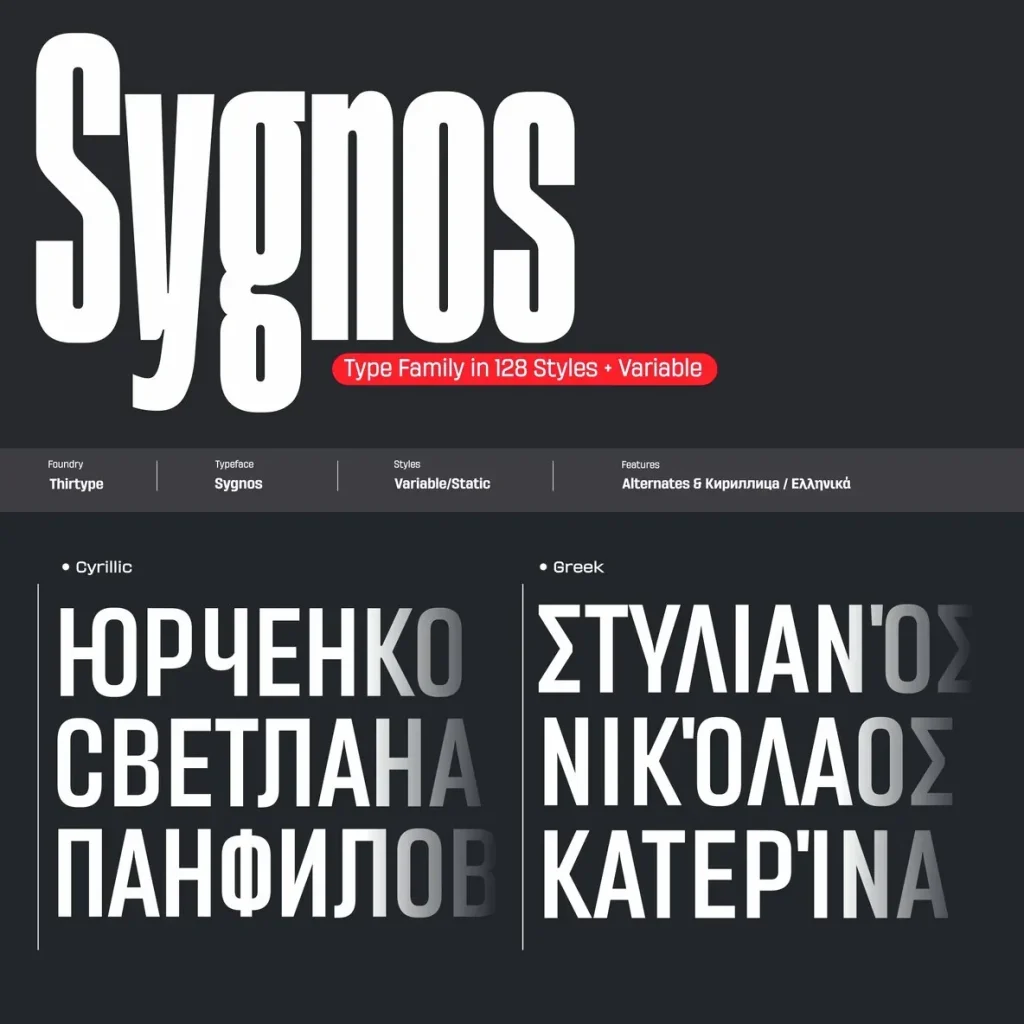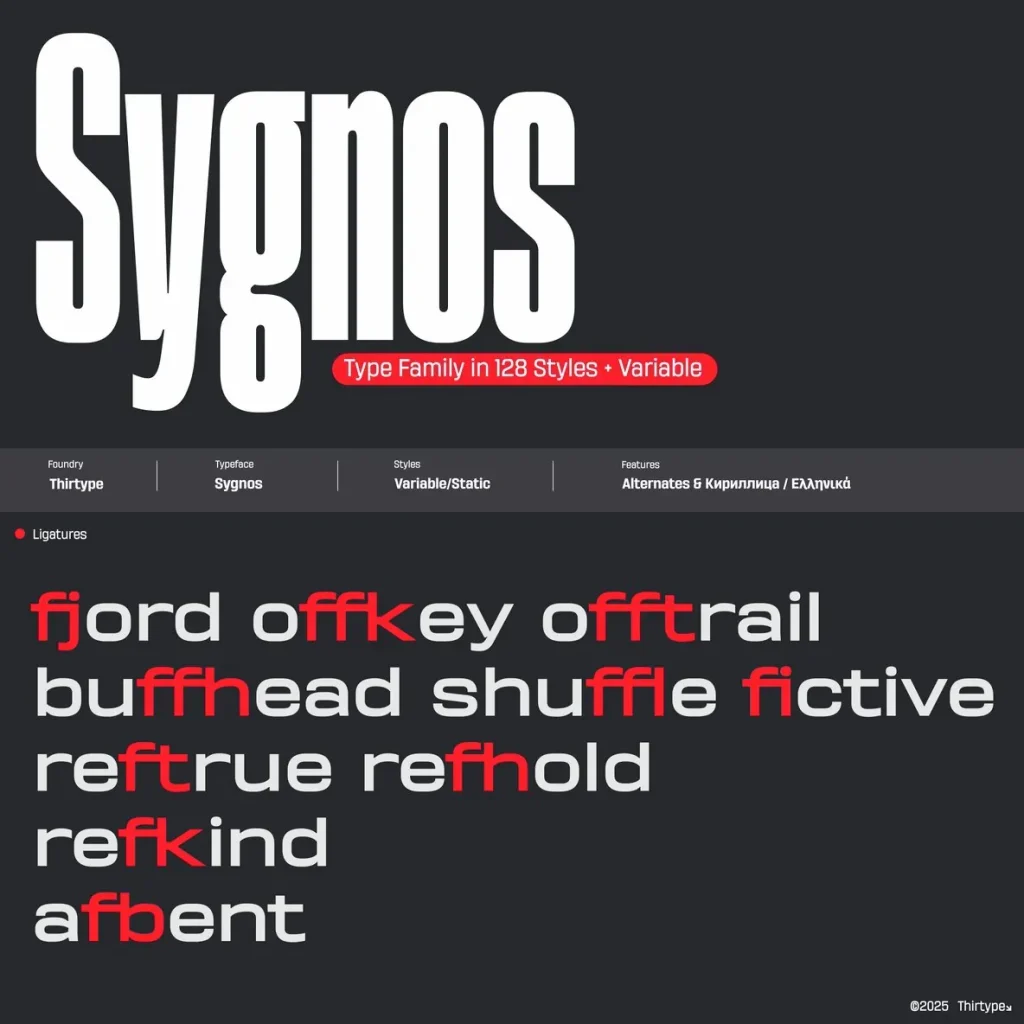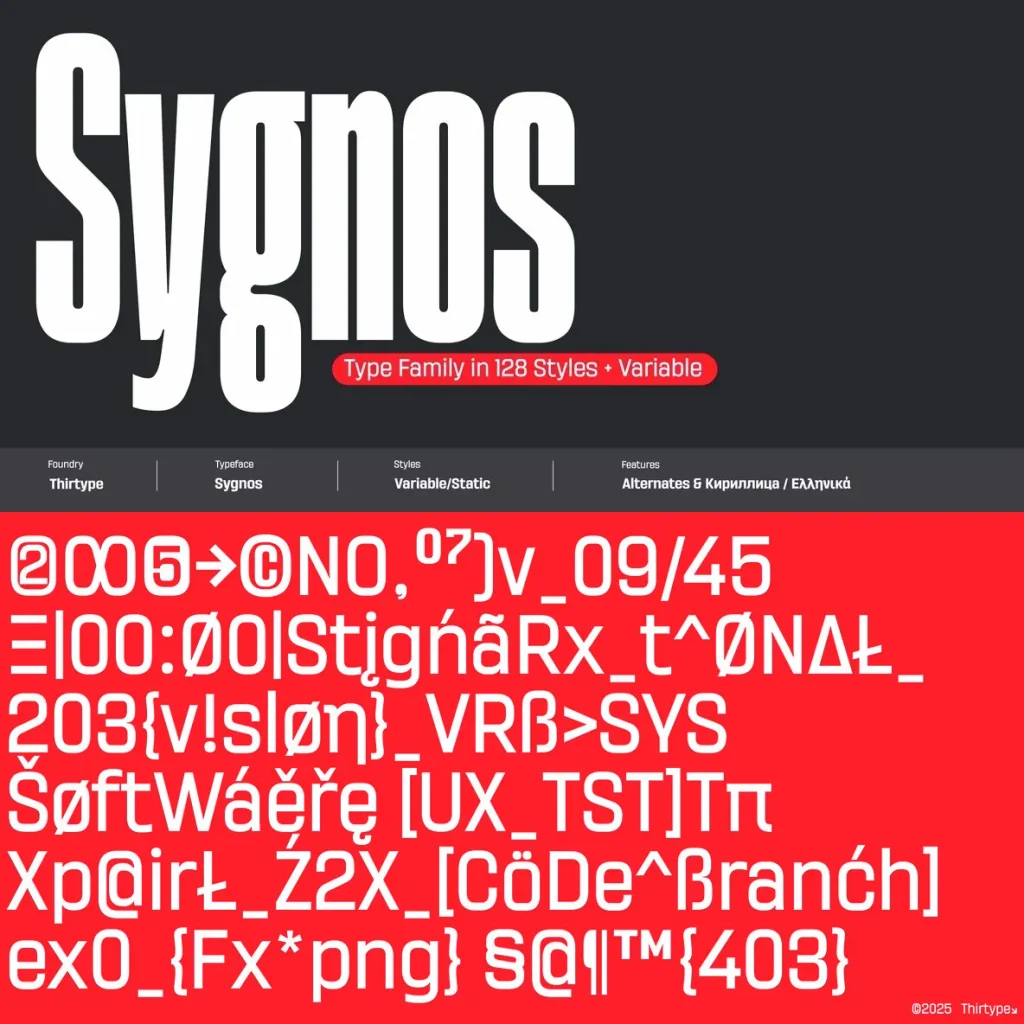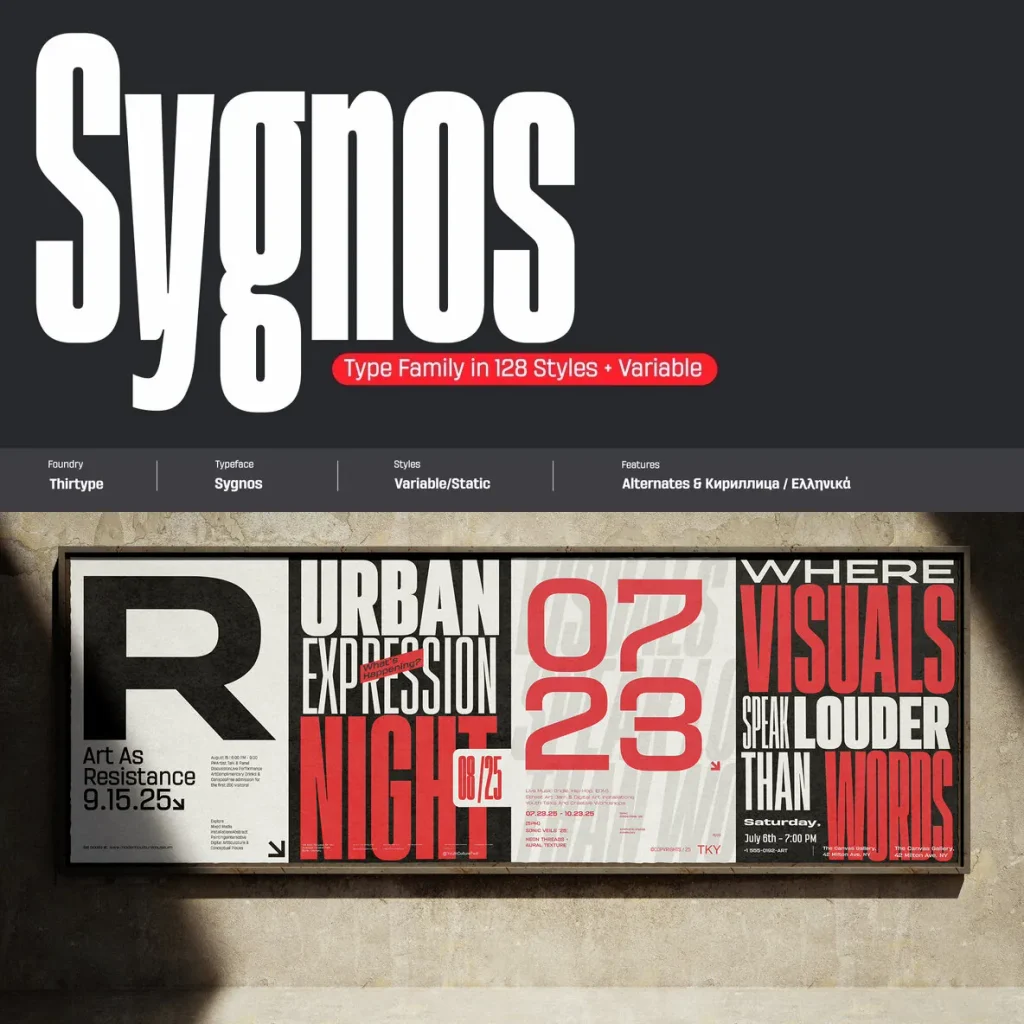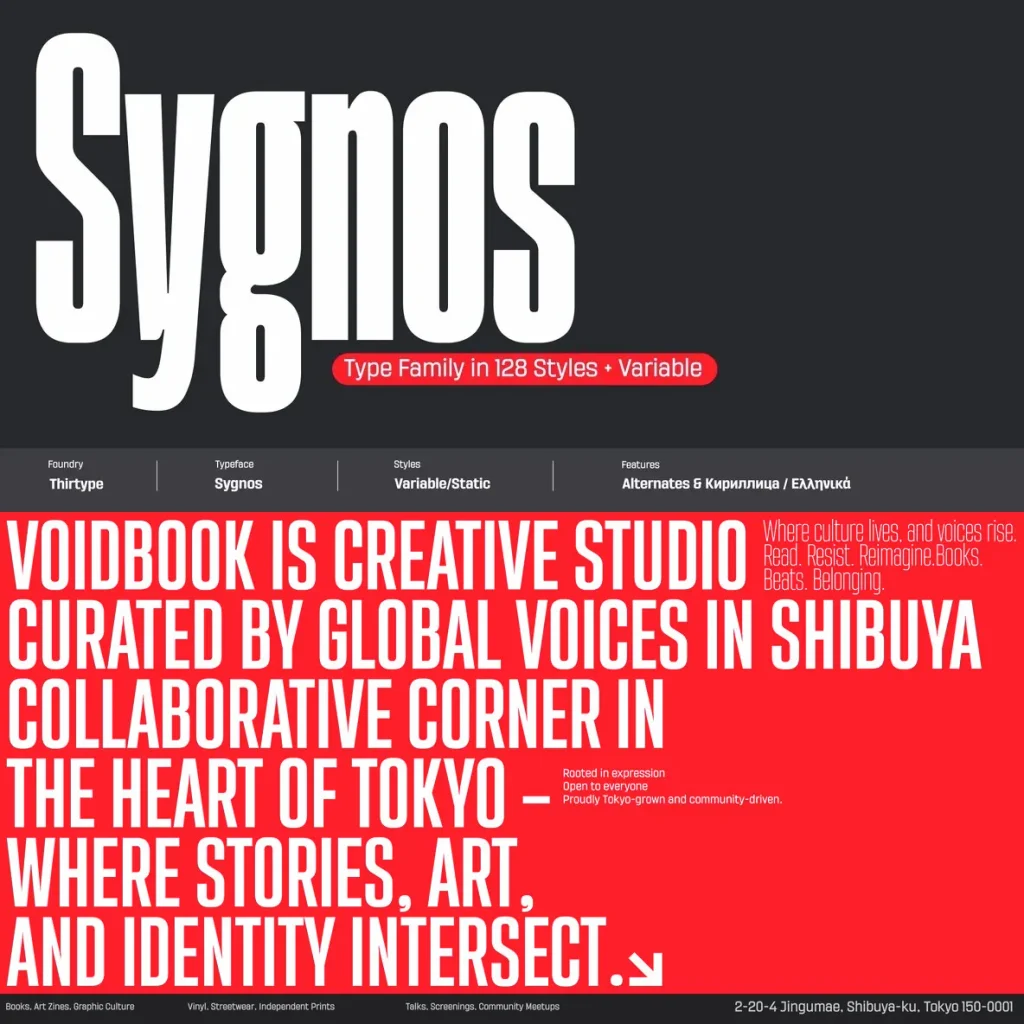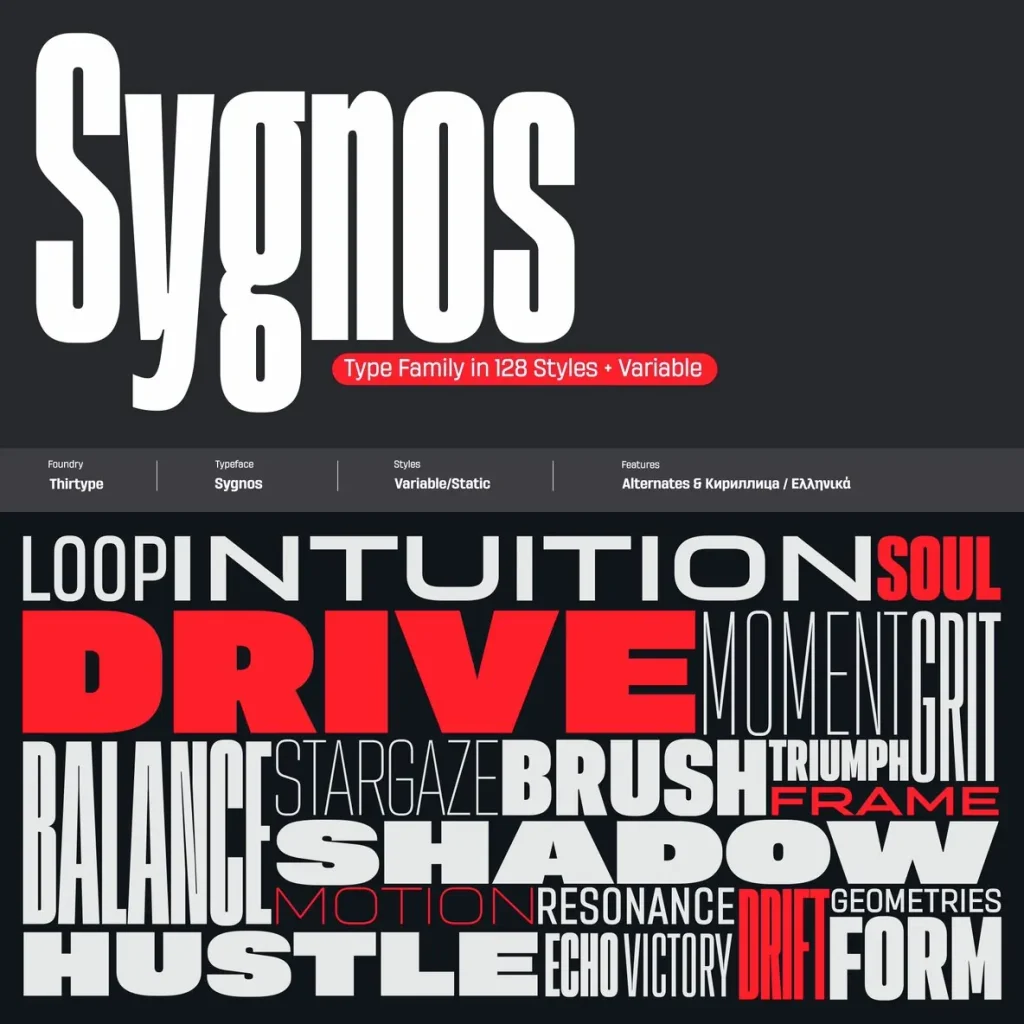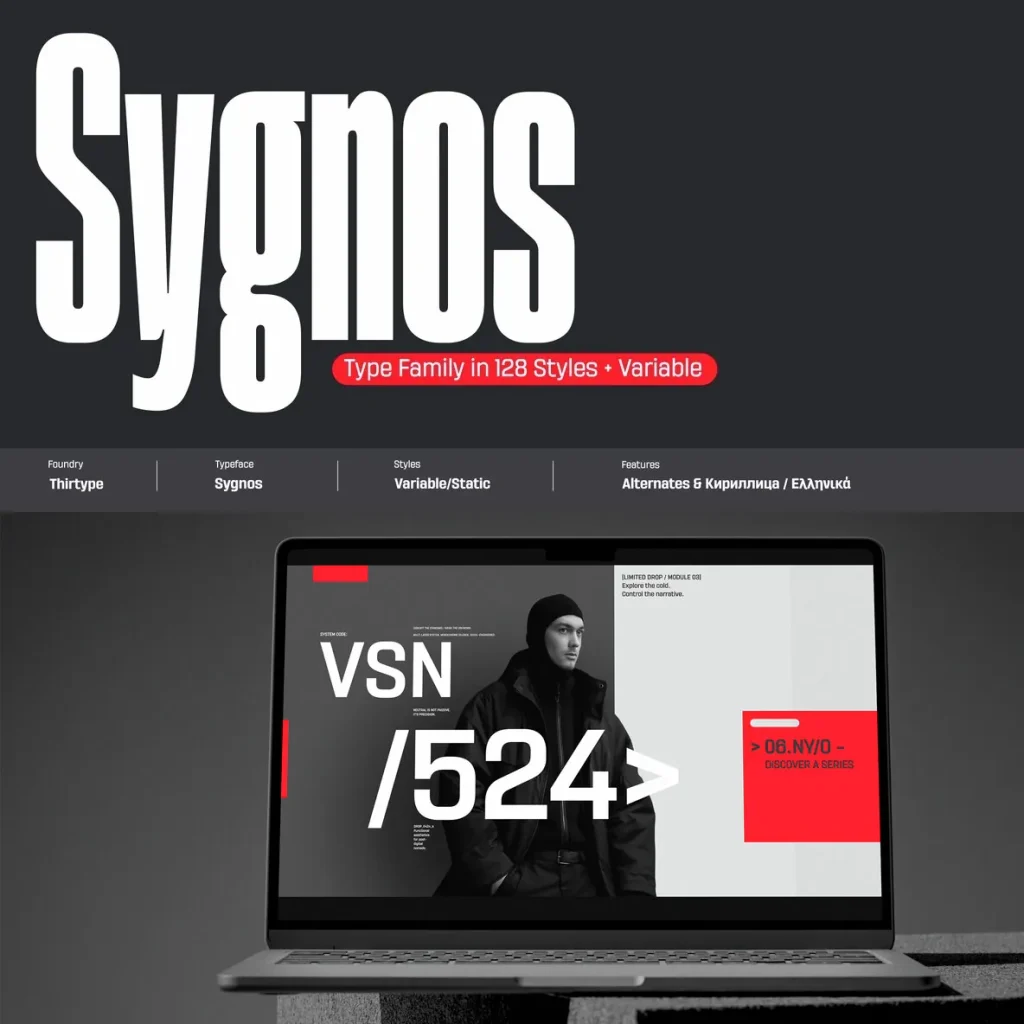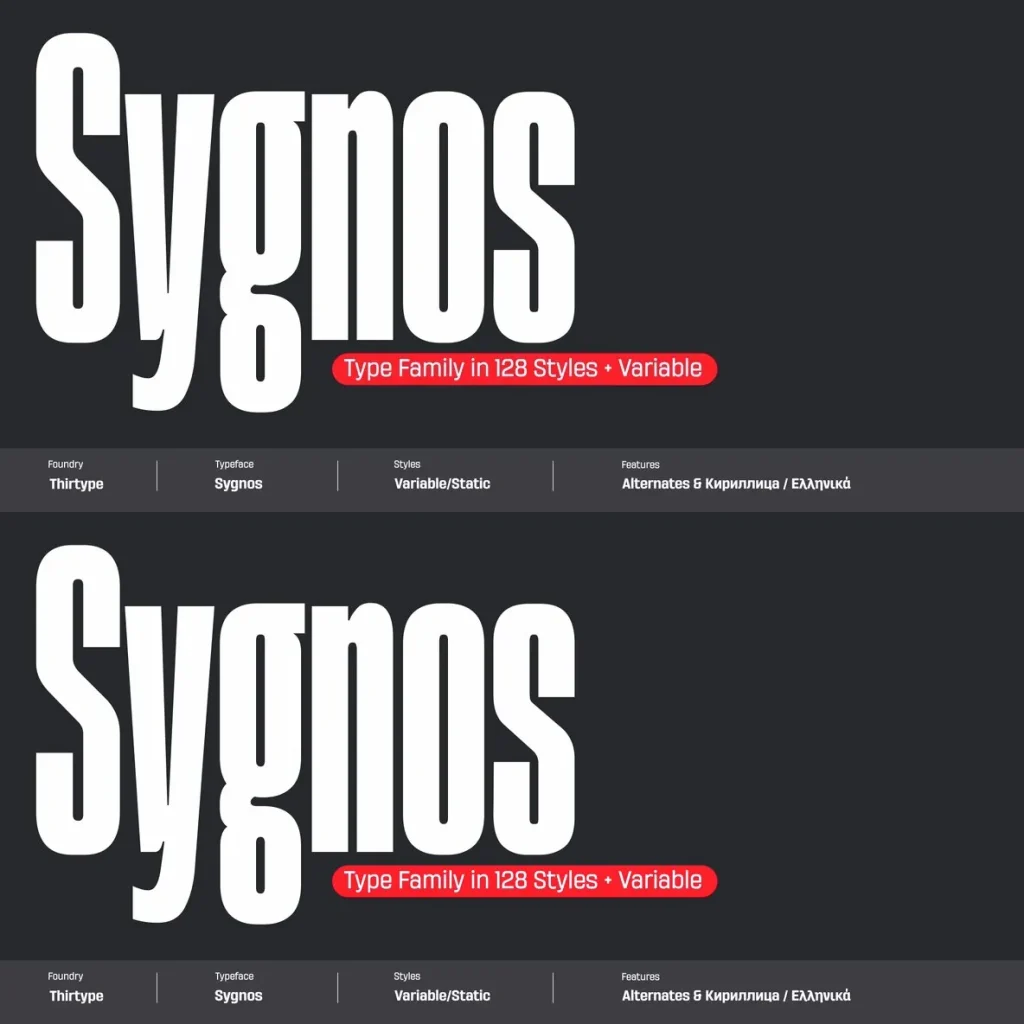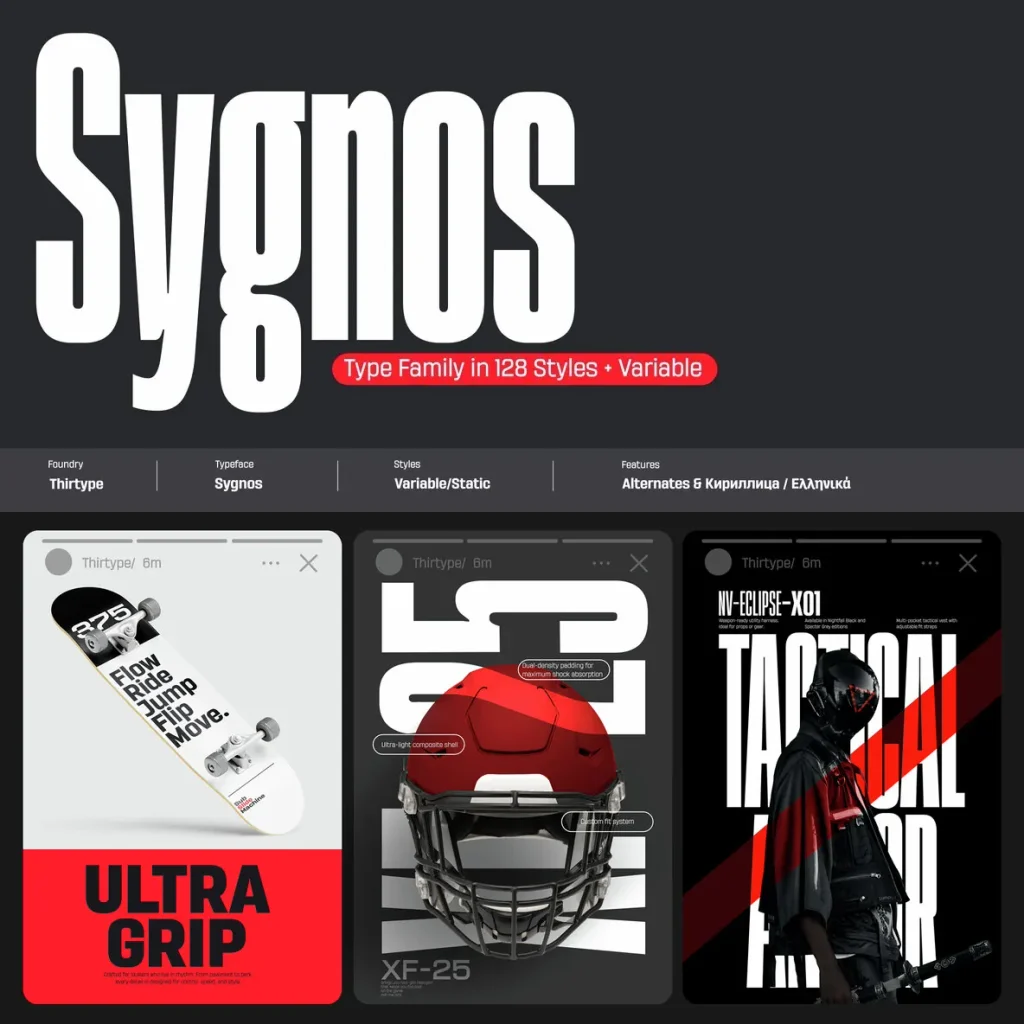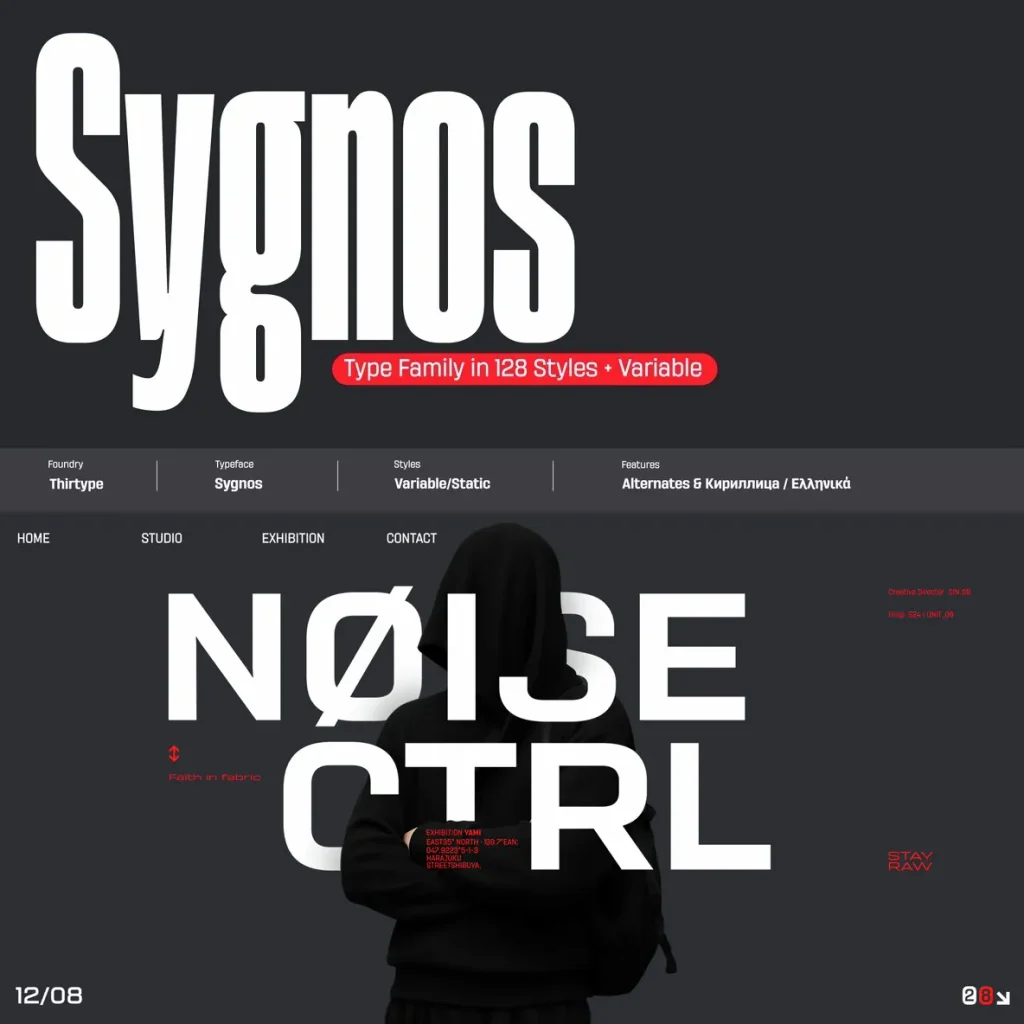
Sygnos — Precision With Presence
Sygnos is a modern display sans-serif built for strong visual impact and broad typographic range. With 128 static styles and 2 variable fonts, it gives designers a complete system for expressive work and professional production. Its weights run from Thin to Black, while its widths span Compressed to Ultra Expanded, allowing the family to handle subtle text settings as well as bold, eye-catching headlines.
The design combines geometric precision with a dynamic personality, giving Sygnos a contemporary yet timeless character. This balance makes the typeface well suited to branding, editorial layouts, advertising, posters, and digital media. Its variable fonts allow smooth customization, with fluid transitions between weights and widths for efficient design work and distinctive visual expression.
Sygnos also supports global communication with comprehensive multilingual coverage, including Latin, Latin Extended, Greek, and Cyrillic alphabets. It is a strong choice for international branding and projects that require consistent, high-quality typography across languages and cultural contexts. From fashion and music to sports, technology, and lifestyle branding, Sygnos offers a complete typographic ecosystem with striking presence and professional polish.